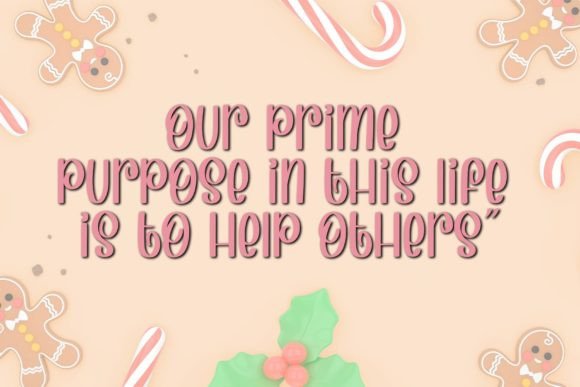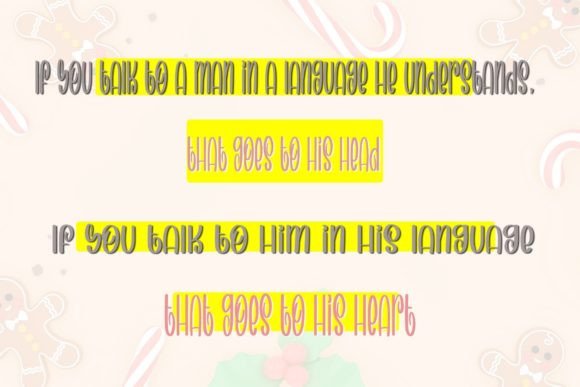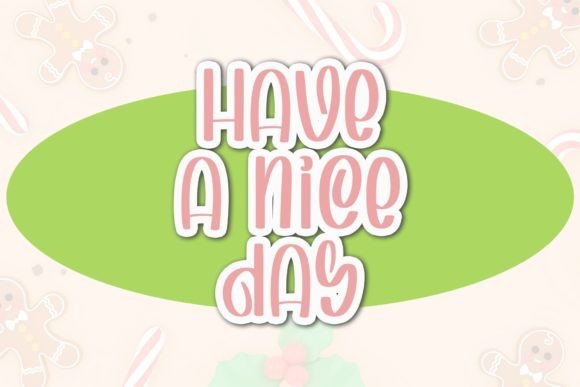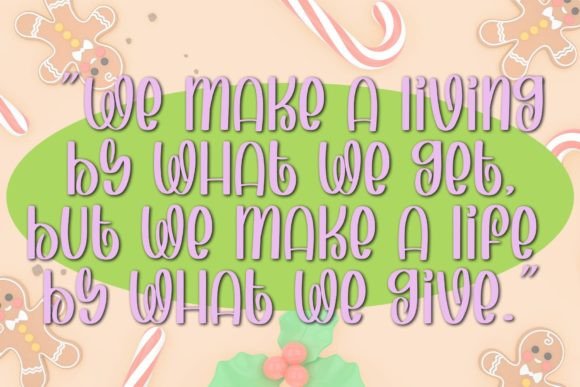
Candy Canes Font
About Candy Canes Font
“Candy Canes” is a stylish handwritten font that exudes a contemporary atmosphere while maintaining impeccable form, drawing inspiration from timeless classic calligraphy. Crafted with a balance of elements and varied characteristics, this font is intended to elevate the aesthetic appeal of your creative projects.
The font’s contemporary and versatile nature makes it well-suited for a diverse range of design applications. Whether you’re working on branding, invitations, labels, posters, or other creative endeavors, “Candy Canes” brings a sense of balance and variation to enhance its adaptability.
With its handwritten style, “Candy Canes” adds a personalized and authentic touch to your designs, establishing a connection with the audience. The influence of timeless classic calligraphy imparts a sense of sophistication, making it suitable for projects that demand an elegant and refined aesthetic.
Integrate “Candy Canes” into your design toolkit to enhance the beauty of your creative projects. Whether you’re creating logos, branding materials, or promotional content, this font offers a stylish option that can elevate the overall visual impact of your work.
Beyond being a font, “Candy Canes” serves as a design tool that brings a contemporary and timeless aesthetic to your projects. Explore the possibilities with “Candy Canes” and let its stylish handwritten charm enhance the beauty of your next design endeavor.